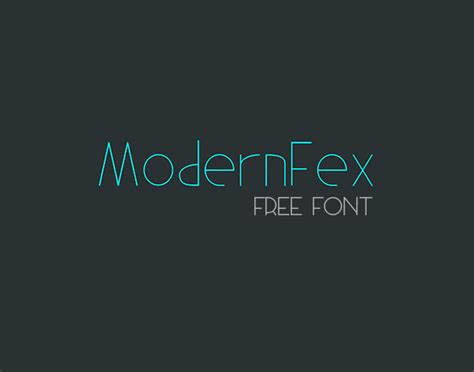
Free Fonts Modern Design / 10 Modern Free Fonts For Your 2015 Design Projects / New highest quality professional free fonts for designers.. The sans serif set is neat and clean with different style. You can customize your experience with live font previews. Today as the competition arises, both modern and classic designers/artists are looking for new ideas to enhance their designing skills and artwork to market it. We have 733 free modern fonts to offer for direct downloading · 1001 fonts is your favorite site for free fonts since 2001. It's ideal for website headers and poster designs.
New highest quality professional free fonts for designers. We have 733 free modern fonts to offer for direct downloading · 1001 fonts is your favorite site for free fonts since 2001. The curved rounded sans serif design makes this font truly one of a kind. Here are a couple we'll be sharing examples of It's ideal for website headers and poster designs.
You'll quickly see from these 50 free fonts that modern fonts are overwhelmingly sans serif typefaces; We have 733 free modern fonts to offer for direct downloading · 1001 fonts is your favorite site for free fonts since 2001. Argon is a powerful free font that comes with a stylishly modern design. All fonts are categorized and can be saved for quick reference and comparison. Freefontspro is the best place to download free fonts. Find and download the best modern fonts for your designs from ffonts.net. 2541 downloads free for personal use. Demo donationware free free for personal use public domain, gpl, ofl shareware.
94 free modern fonts direct download. The modern fonts in this collection are free in all three ways, so please make sure you read the designer's details before using them in your designs. Browse and download modern fonts and generate images from custom text with modern fonts. You'll quickly see from these 50 free fonts that modern fonts are overwhelmingly sans serif typefaces; The modeno font is consistent with the thin designs that many contemporary artists have gravitated to over the last few years. Demo donationware free free for personal use public domain, gpl, ofl shareware. The best selection of modern fonts for windows and macintosh. Free but quality fonts that you can use for your different projects are an essential component of the proper and good use of typography can make a rather bland design into an attractive piece of art.
You'll quickly see from these 50 free fonts that modern fonts are overwhelmingly sans serif typefaces;
This free font is ideal for your modern website designs and magazine designs. Download and install free modern fonts of the best quality from free fonts and use on your own personal and business related design purposes. The modern fonts in this collection are free in all three ways, so please make sure you read the designer's details before using them in your designs. Browse by alphabetical listing, by style, by author or by popularity. Typography is currently playing a central role in web design, with progressive improvements like variable fonts, css shapes, flexbox, css grids and subgrid definitively changing the way we work with typography in web design.
94 free modern fonts direct download. Demo donationware free free for personal use public domain, gpl, ofl shareware. Freefontspro is the best place to download free fonts. That is, there is no projecting lines or curls at the ends of a. Font name newest most downloads. Browse and download modern fonts and generate images from custom text with modern fonts. You'll quickly see from these 50 free fonts that modern fonts are overwhelmingly sans serif typefaces; The sans serif set is neat and clean with different style.
That is, there is no projecting lines or curls at the ends of a.
Download and install free modern fonts of the best quality from free fonts and use on your own personal and business related design purposes. Freefontspro is the best place to download free fonts. 1 2 3 4 5 6 7 8 9 10. Argon is a powerful free font that comes with a stylishly modern design. The curved rounded sans serif design makes this font truly one of a kind. It is the world of inventions and discoveries, we have already used the peak of technology and are eyeing up, what the future years will unfold before us, people are flying over to moon, travelling to far off places is a lot more easier, doing household chores are all depending on machinery now. Download free modern fonts at urbanfonts.com our site carries over 30,000 pc fonts and mac fonts. Demo donationware free free for personal use public domain, gpl, ofl shareware. Archive of freely downloadable fonts. Typography is currently playing a central role in web design, with progressive improvements like variable fonts, css shapes, flexbox, css grids and subgrid definitively changing the way we work with typography in web design. Russian font designer rus khasanov designed vetka to look outstanding with cyrillic or latin. You can customize your experience with live font previews. 94 free modern fonts direct download.